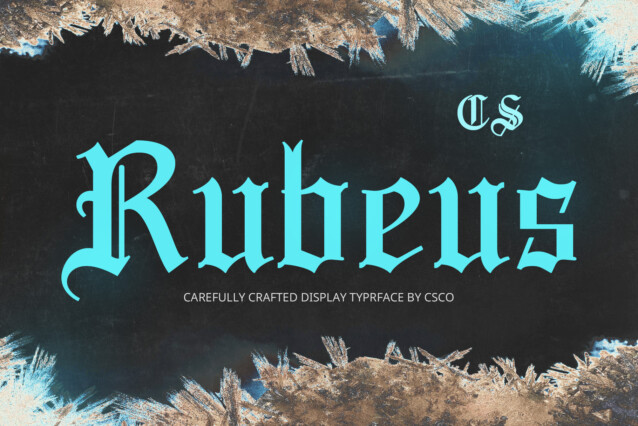
CS Rubeus Font
CS Rubeus Font is an Old English display font that captures the intricate, historic charm of medieval Blackletter styles. With its bold vertical strokes, sharp angles, and elaborate decorative details, this font echoes the grandeur of ancient manuscripts and heraldic traditions. Its dense, authoritative appearance exudes sophistication and timeless beauty, making it a standout choice for designs that aim to convey tradition and elegance.